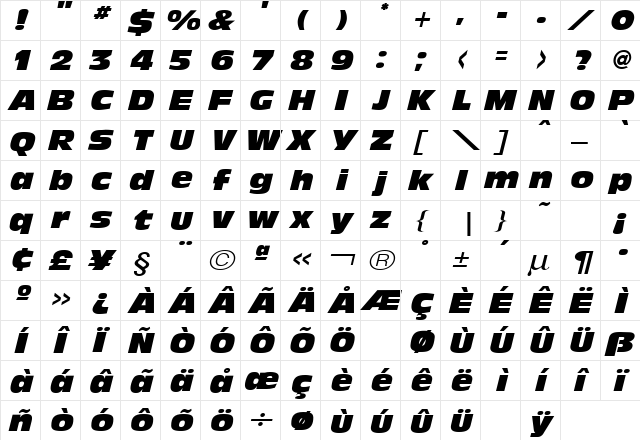
Olive Antique Black Extended Italic
Design Context for Olive Antique Black Extended Typeface
Olive Antique Black Extended wears its vintage influences proudly, with letterforms that recall mid-century signage, classic packaging, and nostalgia-driven design. The slanted form adds forward momentum and visual energy.
Perfect for vintage-inspired branding, retro packaging, nostalgia campaigns, and period-accurate editorial design.
Font Pairing: Combine Olive Antique Black Extended with a simple slab or neutral sans — period-accurate companions reinforce the vintage feel without competing for attention.
Pro Tip: Use Olive Antique Black Extended for headlines and pull quotes rather than body copy — its personality is best appreciated in short, focused bursts.